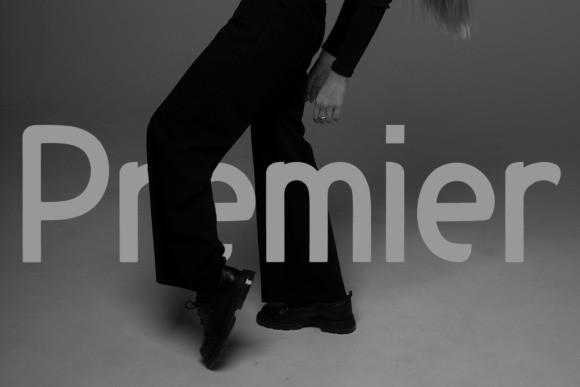
Playful Sans Font
Playful Sans Font is a minimal and neat sans serif font that can easily be matched to a large set of projects. So add it to your creative ideas, and notice how it makes them stand out!